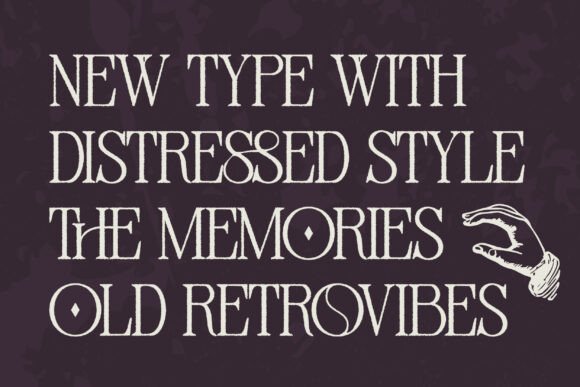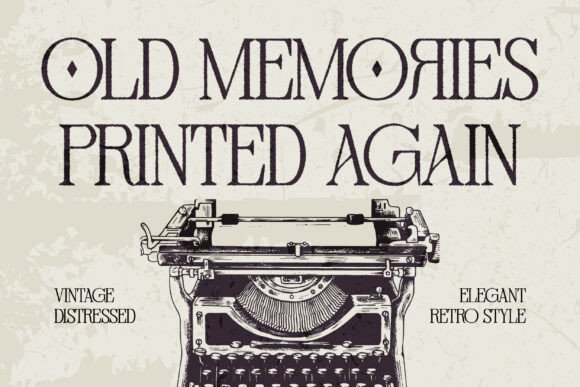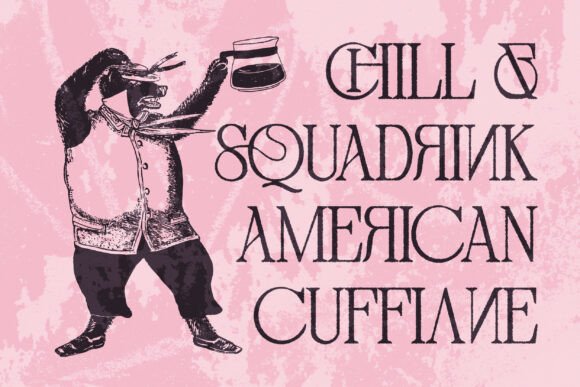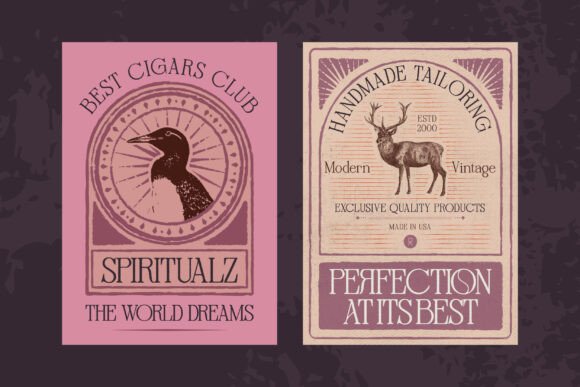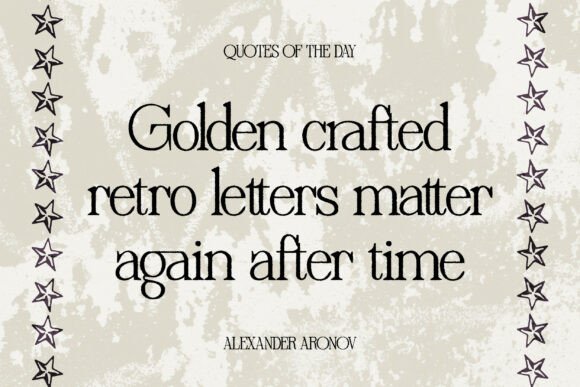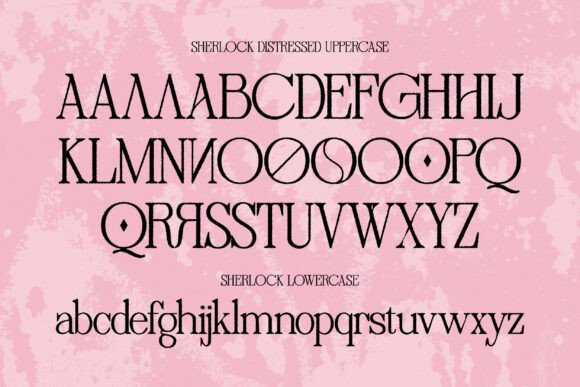
Introduction to Distressed Sherlock Font
Have you ever found yourself lost in the process of creating the perfect typography for a project, only to settle for something that’s just “fine”? We’ve all been there. As designers, we know that the right font can make or break a design. And that’s exactly why we’re excited to introduce you to the Distressed Sherlock Font – a game-changing design resource that’s about to become your new go-to for high-quality typography.
With its elegant serif design and beautiful distressed texture, the Distressed Sherlock Font is the perfect addition to any creative project. Whether you’re working on a luxury branding project, designing a magazine, or creating a wedding invitation, this font is sure to bring a touch of sophistication and class to your design. And the best part? It’s available for free download, so you can start experimenting with it today.
So why is the Distressed Sherlock Font so valuable for designers? For starters, its transparent background makes it easy to use with any design, and its unique ligatures and stylistic alternates give you endless possibilities for creative expression. Whether you’re a seasoned pro or just starting out, this font is a must-have for anyone looking to elevate their design game.
Key Features of Distressed Sherlock Font
- High-quality distressed design for a creative project, perfect as a design resource.
- Distressed Sherlock Font features a transparent background, allowing for easy layering and customization.
- Unique characteristics include a distressed, vintage-inspired aesthetic with subtle texture and wear.
- Perfect for designers, artists, and writers seeking a high-quality, distressed font for their creative projects.
Honest Review: Distressed Sherlock Font
I recently stumbled upon the Distressed Sherlock Font and was excited to give it a try. As a designer, I’m always on the lookout for high-quality design resources that can elevate my creative projects.
One of the standout features of this font is its unique distressed aesthetic, which adds a touch of edginess to any design. I found the transparent background to be particularly useful, as it allows for seamless integration with other design elements.
- Unique distressed aesthetic
- Limited character set, which may not be ideal for longer texts
- Not as versatile as some other fonts in terms of style and functionality
Overall, I was impressed with the Distressed Sherlock Font, but I do wish it had a more comprehensive character set. Despite this, I think it’s a great addition to any designer’s toolkit, especially for creative projects that require a unique aesthetic.
The Distressed Sherlock Font is perfect for creative projects that require a unique and high-quality design. Some common use cases include:
- Designing a logo or branding materials
- Creating a poster or flyer
- Developing a website or app